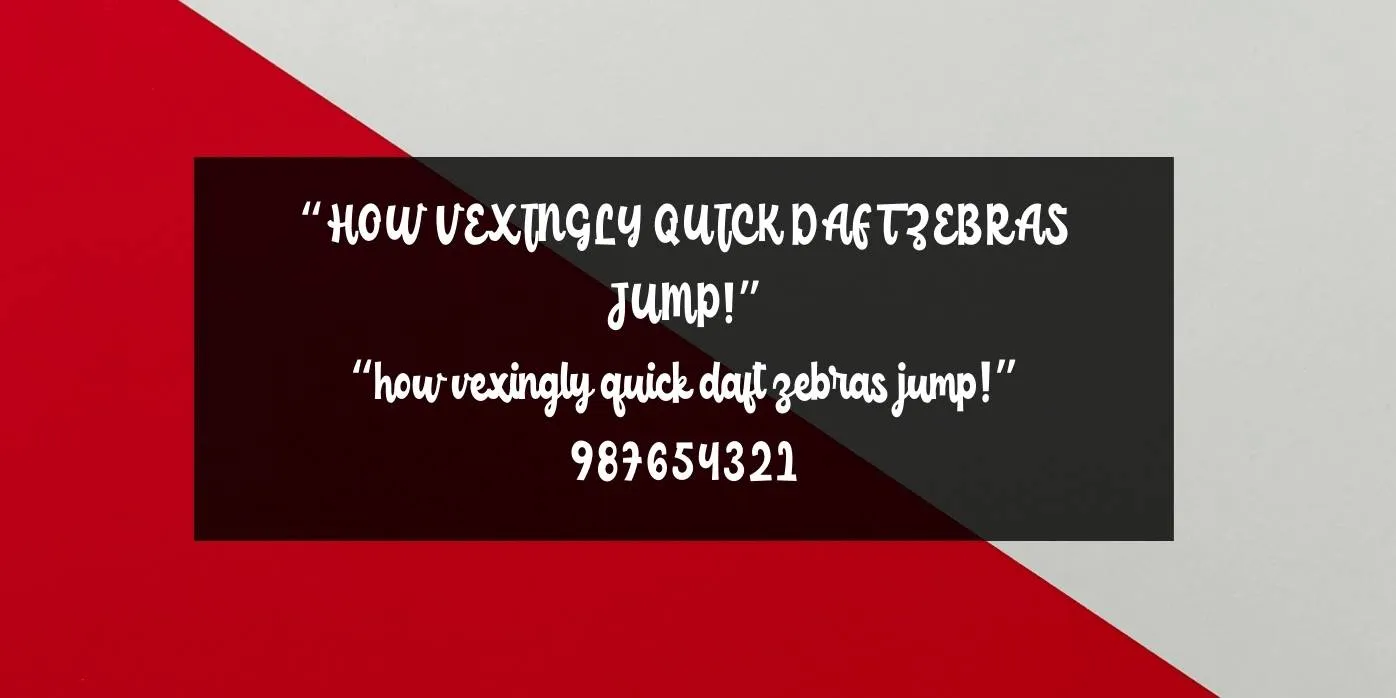
Childish Font
In this post, we introduce a modern typeface known as Childish Font. This tremendous typeface was designed by alphArtype. This font is perfect for those who are looking for a unique and stylish font. The typeface includes upper and lowercase letters, numbers, and symbols.
Childish Typeface is available in two different styles, Regular and Bold. Childish Typeface is a great choice for anyone looking for a modern and stylish Typeface. The typeface includes upper and lowercase letters, numbers, and symbols, making it perfect for any project. Childish Typeface is available in two different styles, Regular and Bold.